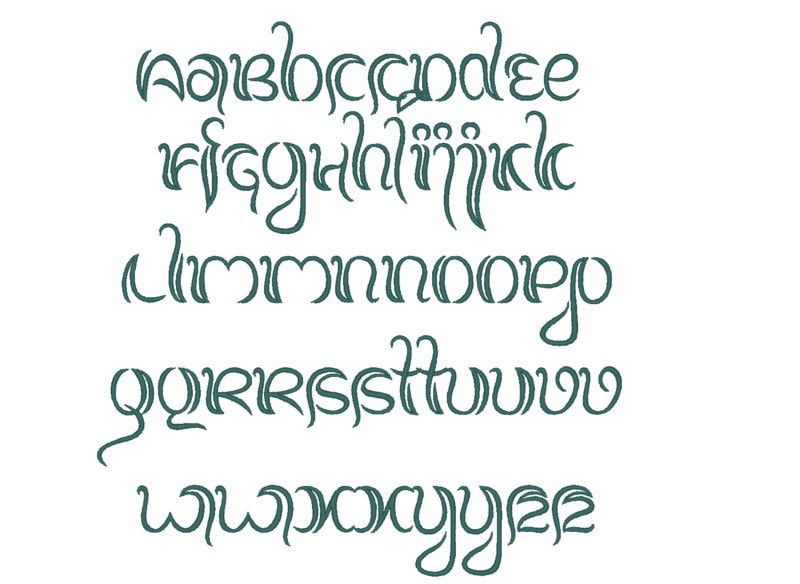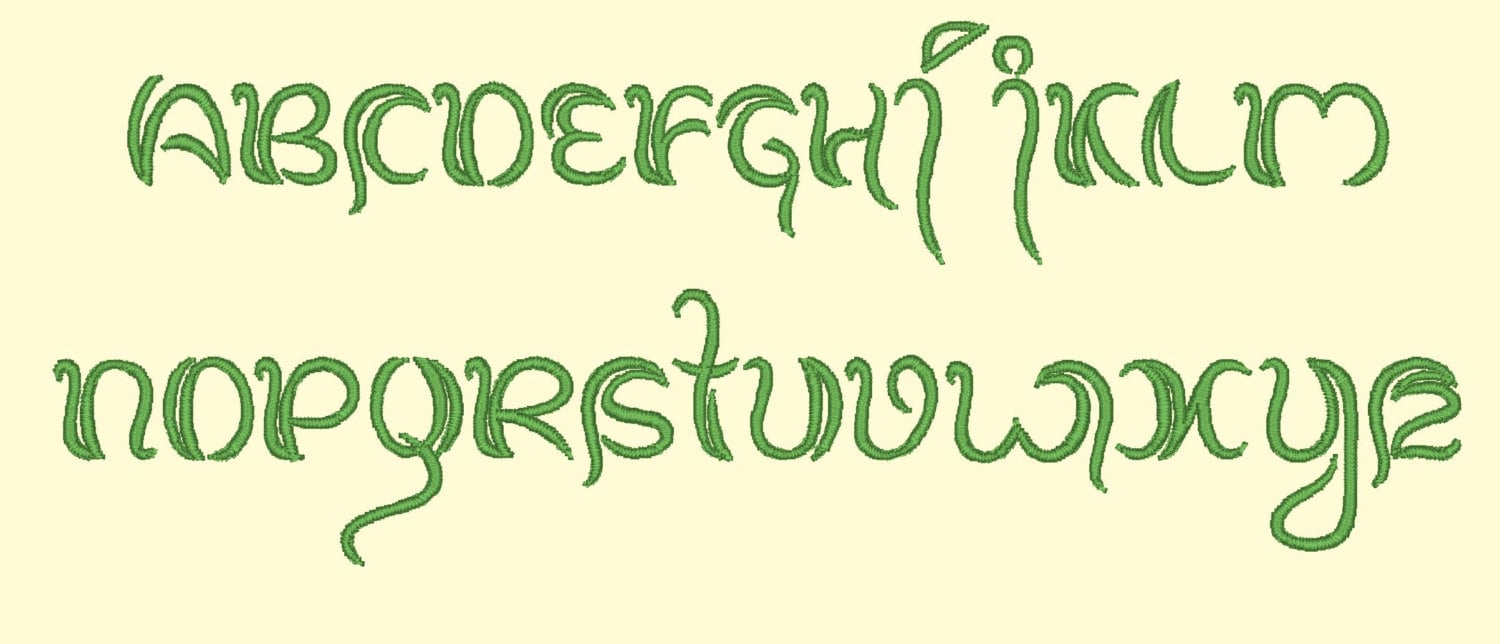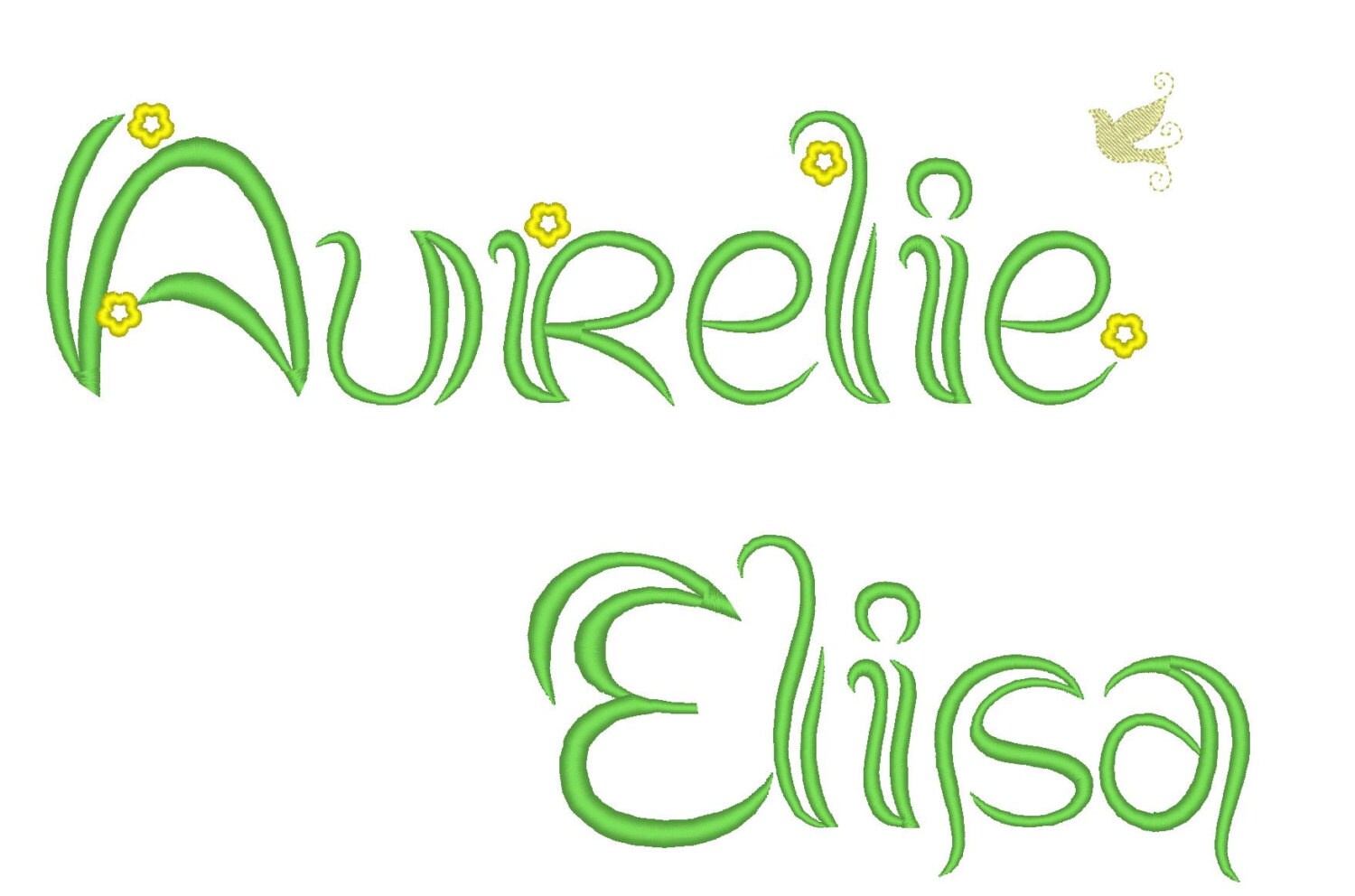
Blossom Font and small add-ons machine embroidery designs in mini sizes, kids girly spring uppercase and lowercase monogram alphabet letters
Blossom Font - uppercase and lowercase
Add-ons:
doves
flowers